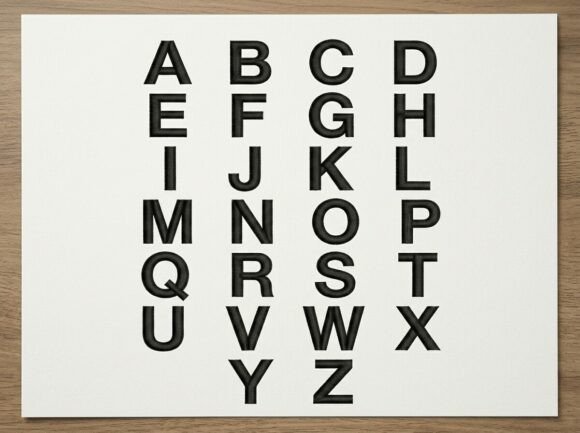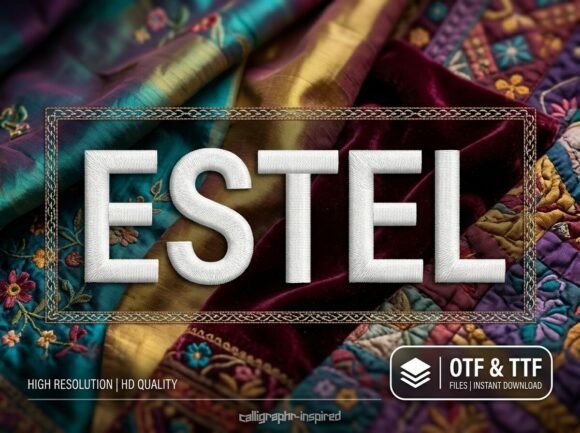
Introducing Estel Font: A Stunning Decorative Display Font
Are you tired of using the same old fonts for your designs? Do you want to make a statement and stand out from the crowd? Look no further than Estel Font, a beautiful decorative display font that’s sure to turn heads. With its unique artistic elements and strong visual personality, Estel Font is perfect for creators who want to add a touch of elegance and sophistication to their work.
What Makes Estel Font Special?
Estel Font is a one-of-a-kind decorative display font that’s designed to be the center of attention. Its unique artistic elements and strong visual personality make it perfect for bold headlines, artistic logos, and creative packaging. Whether you’re a designer, crafty DIY enthusiast, or simply someone who loves to create, Estel Font is the perfect addition to your font collection.
Key Features of Estel Font
• Unique Artistic Elements: Estel Font features intricate and artistic elements that set it apart from other fonts.
• Strong Visual Personality: This font has a bold and eye-catching personality that’s sure to make a statement.
• Versatile: Estel Font is perfect for a variety of design projects, from bold headlines and artistic logos to creative packaging.
• Professional and Polished Finish: Despite its bold and artistic nature, Estel Font maintains a professional and polished finish that’s perfect for high-end designs.
⚠️ IMPORTANT NOTE BEFORE PURCHASE: Estel Font is an ALL-CAPS (Uppercase Only) display typeface. It does not include lowercase letters. It is specifically designed for high-impact headlines, logos, and decorative initials where every letter is a work of art.
Why Choose Estel Font?
So why choose Estel Font for your design projects? Here are just a few reasons:
• Add a Touch of Elegance: Estel Font adds a touch of elegance and sophistication to any design project.
• Stand Out from the Crowd: With its unique artistic elements and strong visual personality, Estel Font is sure to make your designs stand out from the crowd.
• Perfect for Creative Projects: Estel Font is perfect for creative projects, from artistic logos and bold headlines to creative packaging.
Tips for Using Estel Font
Here are a few tips for using Estel Font in your design projects:
• Use for Headlines and Titles: Estel Font is perfect for headlines and titles where you want to make a bold statement.
• Pair with Other Fonts: Estel Font pairs well with other fonts, so feel free to get creative and experiment with different combinations.
• Experiment with Colors and Textures: Estel Font looks great in a variety of colors and textures, so don’t be afraid to experiment and find the perfect combination for your design.
Font Name Estel Font
Author Angel_Srapix
Estel Font is a stunning decorative display font that’s perfect for creators who want to add a touch of elegance and sophistication to their design projects. With its unique artistic elements and strong visual personality, Estel Font is sure to make a statement and turn heads. Whether you’re a designer, crafty DIY enthusiast, or simply someone who loves to create, Estel Font is a must-have addition to your font collection.